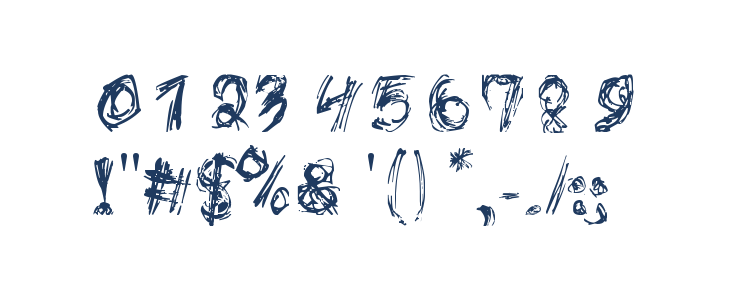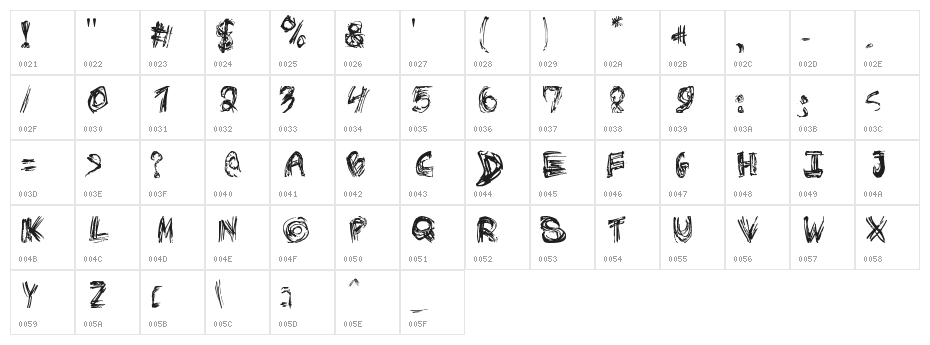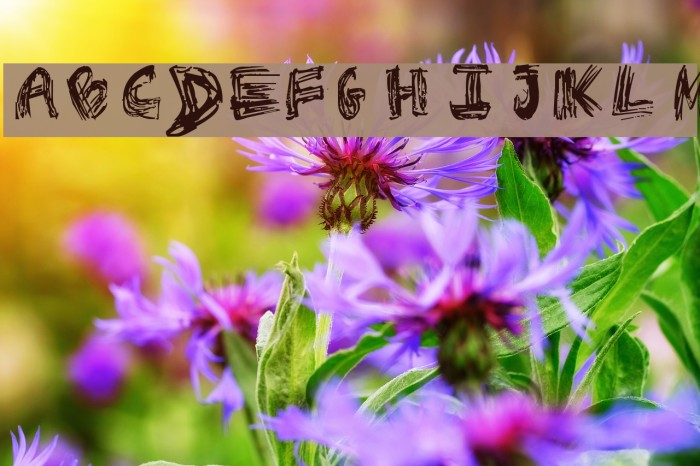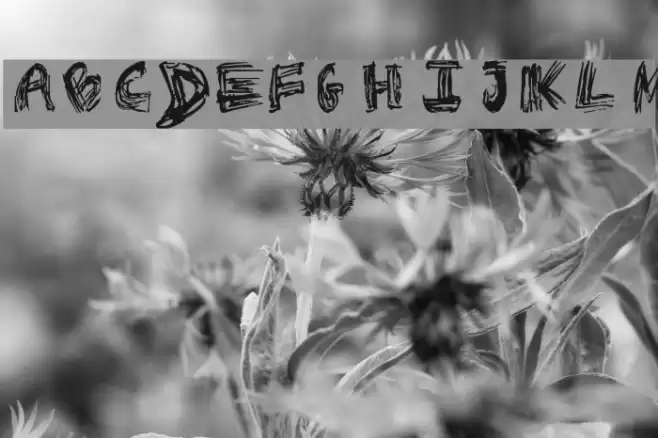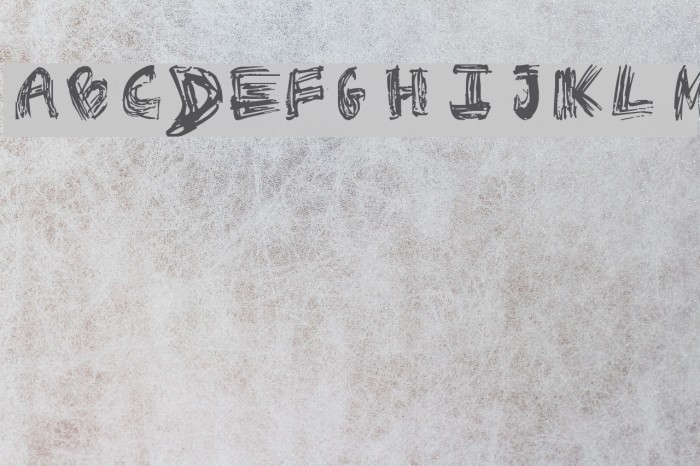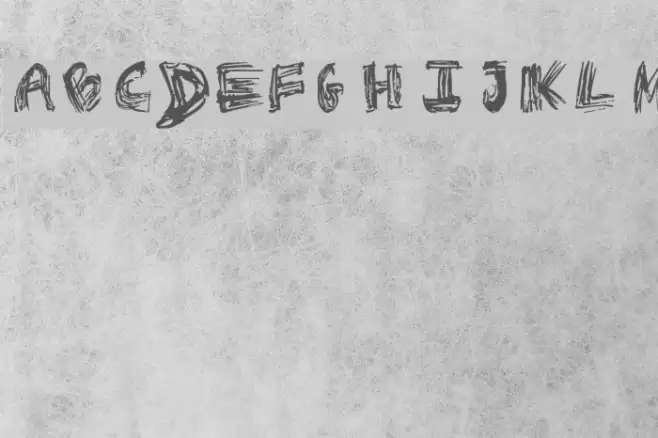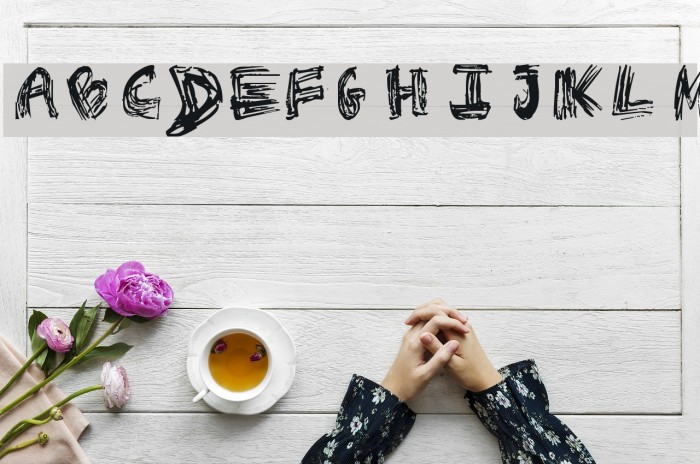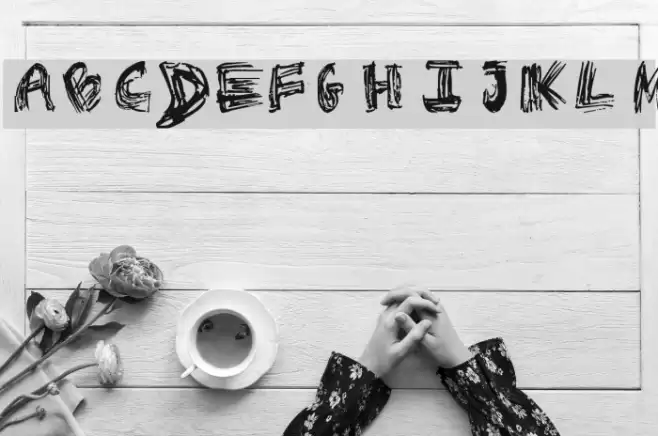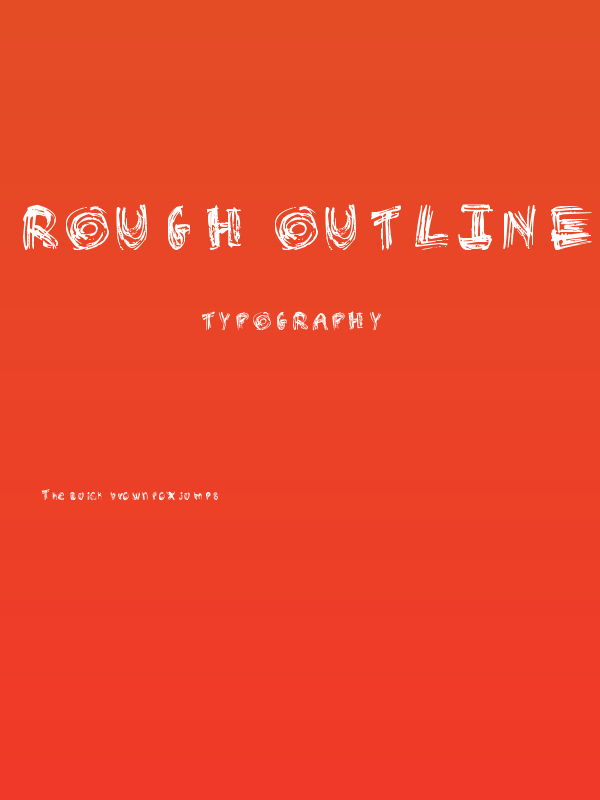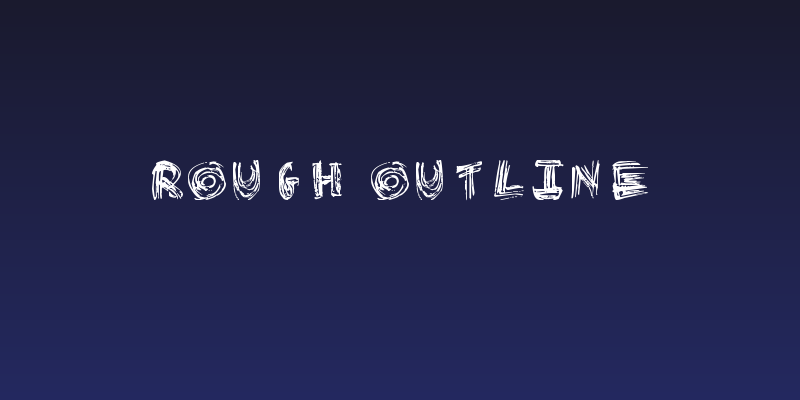
Rough Outline Font
Rough Outline Description
This font features a bold, rough, and sketch-like appearance, reminiscent of hand-drawn or graffiti styles. Each character is uniquely crafted with uneven strokes and a textured finish, giving it a raw and edgy look. The uppercase and lowercase letters maintain a consistent style, with exaggerated curves and irregular outlines that add to its dynamic feel. Numbers and special characters follow the same artistic approach, ensuring a cohesive visual impact. This font's distinctive style makes it stand out, ideal for projects that require a bold statement or an artistic touch.
| Use Case | Headlines, Logos, Artistic projects |
| Proposed Projects | Ideal for posters, album covers, street art designs, and creative branding projects. |